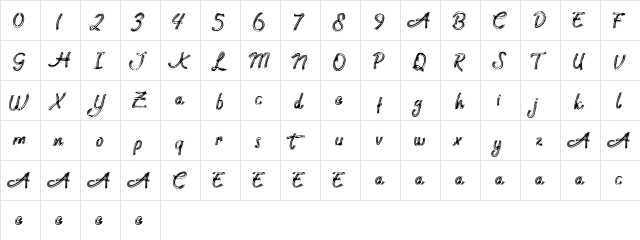
Rock Brush Pro Regular
Design Context for Rock Brush Pro Typeface
Rock Brush Pro flows with the natural rhythm of handwritten lettering, making it ideal for designs that call for warmth and personal expression.
Font Pairing: Combine Rock Brush Pro with a simple geometric sans for maximum contrast — the tension between flowing curves and clean structure is a classic typographic pairing.
Pro Tip: Use Rock Brush Pro for short runs of text — names, titles, or taglines. Extended body copy in script faces tires the eye quickly.